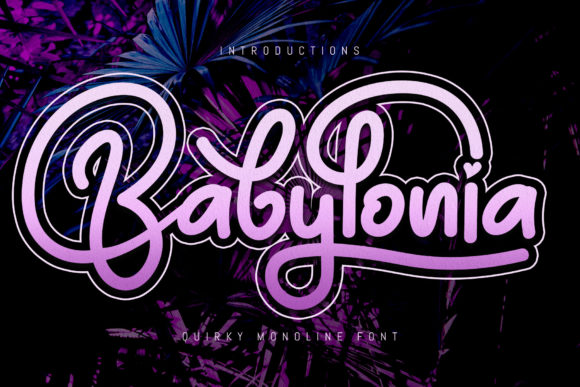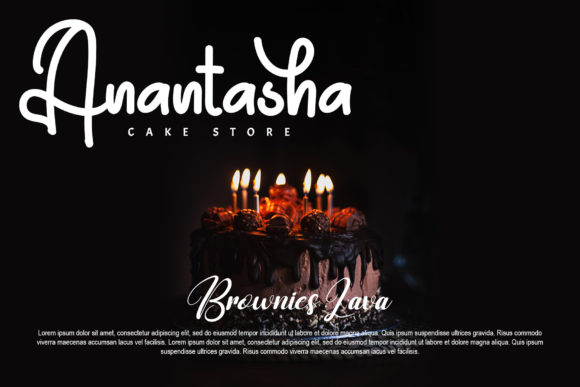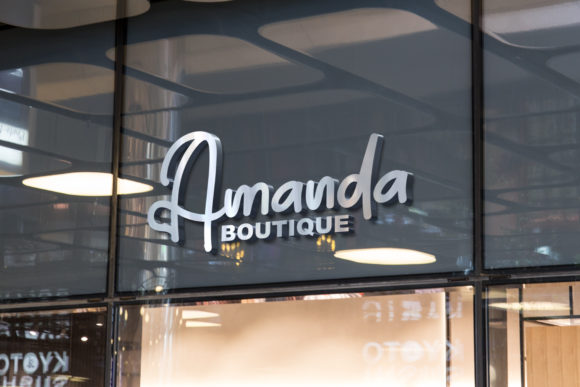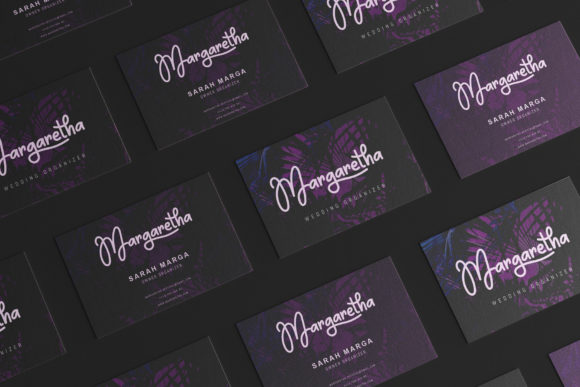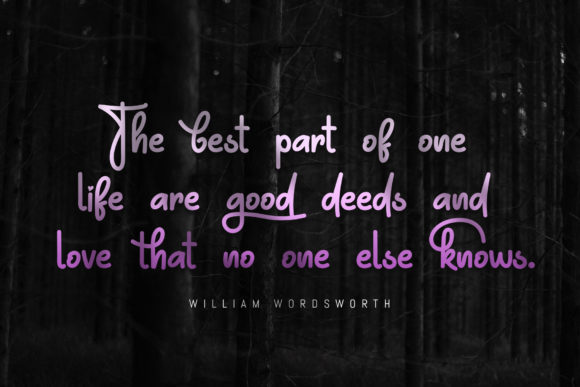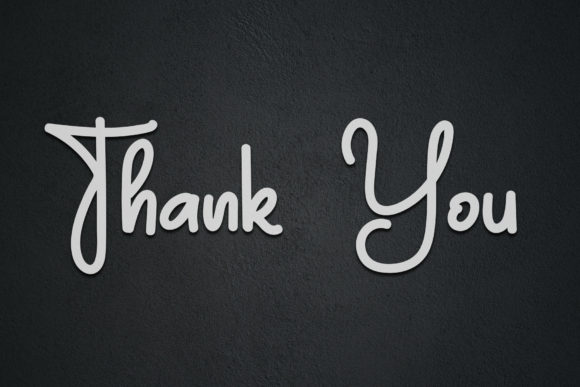
Babylonia Font
About Babylonia Font
Babylonia is a beautiful and whimsical script font. It is defined by smooth curves and is perfect for fashion branding or editorial designs. Add it confidently to your projects, and you will love the results.